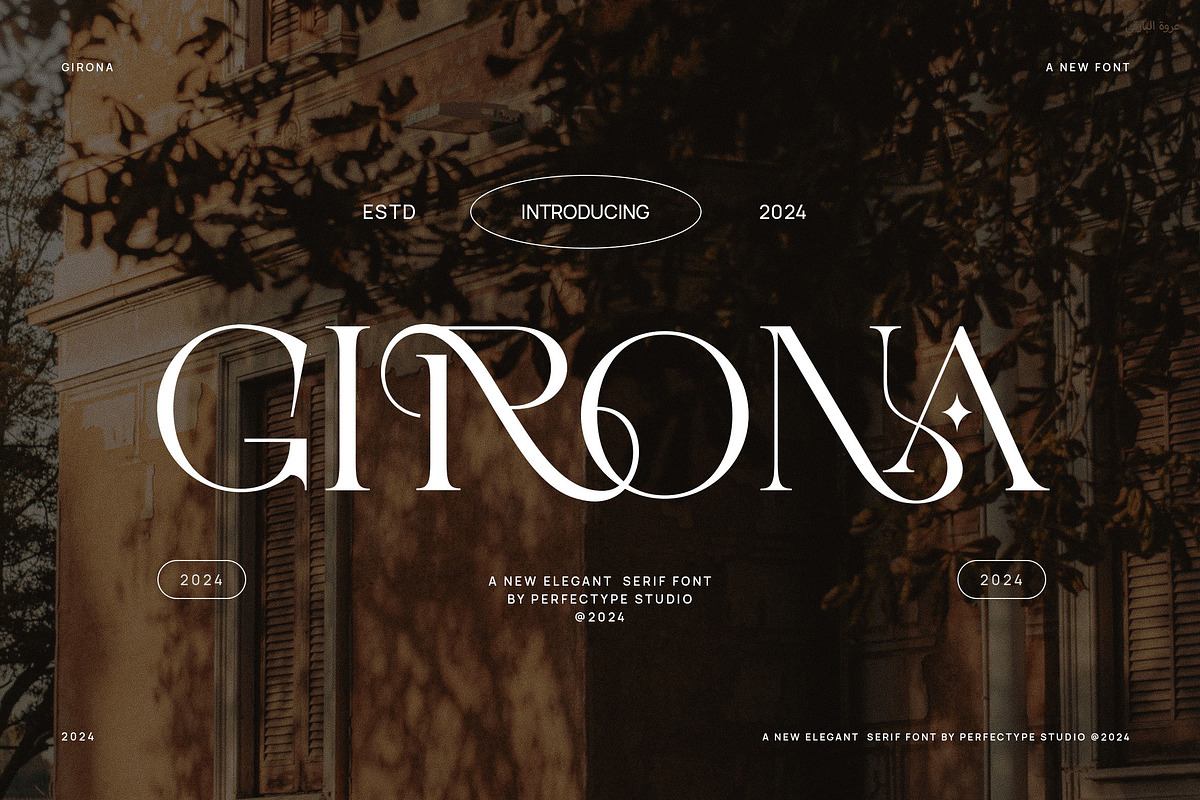
This refined font is perfect for luxury fashion magazines, high-end jewelry branding, elegant wedding invitations, premium wine labels, sophisticated restaurant menus, art gallery exhibitions, cultural event programs, and upscale hospitality materials. Its graceful character makes it ideal for projects requiring Mediterranean elegance and timeless sophistication.
Girona Elegant Serif Font is exciting because it captures the artistic heritage and cultural refinement of the historic Catalonian city, featuring beautifully proportioned letterforms that reflect centuries of European typographic tradition. The font combines classical serif elegance with subtle contemporary refinements, creating exceptional readability while maintaining the distinguished presence associated with fine European craftsmanship. Its sophisticated personality conveys luxury, culture, and artistic excellence.
The Girona Elegant Serif Font family typically includes multiple weights from light to bold, along with italic variations and extensive character sets. Many versions feature stylistic alternates, elegant ligatures, and special European diacritical marks that enhance its authenticity for international luxury applications.
Whether you're developing prestigious brand identities, cultural publications, or luxury marketing campaigns, Girona Elegant Serif Font Free Download provides European sophistication with contemporary versatility. This typeface transforms ordinary text into distinguished statements that resonate with discerning audiences who appreciate artistic heritage and cultural refinement. Its exceptional legibility across various applications ensures consistent performance while its elegant character adds memorable distinction to brands and publications that value tradition, quality, and the timeless appeal of European design excellence.